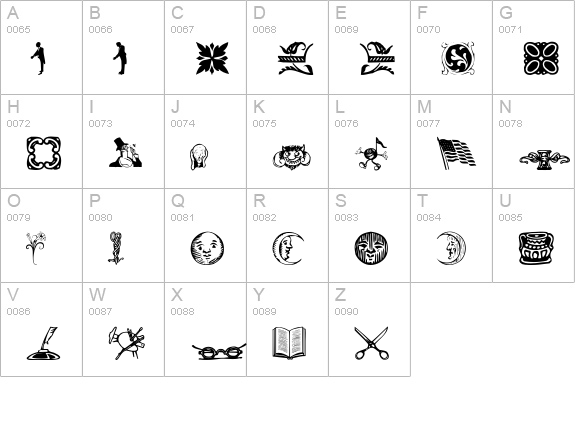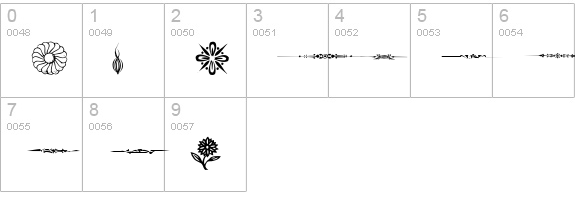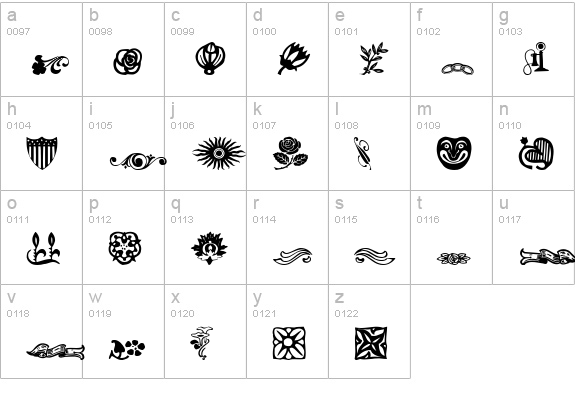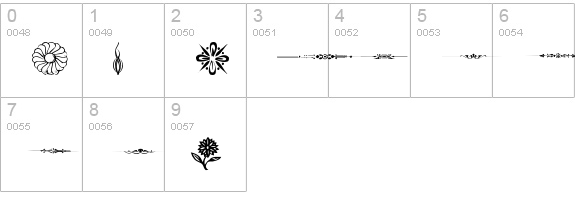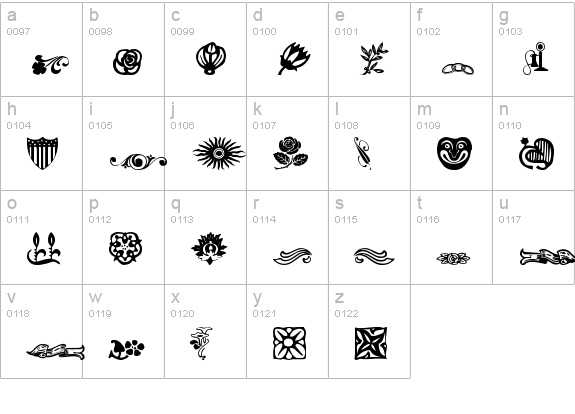
DavysDingbats1 Font Details
DavysDingbats1 font is a whimsical and playful typeface that is perfect for adding a touch of fun to your designs. This unique font features a variety of decorative dingbats and ornaments that can be used to enhance your projects. Whether you're creating invitations, posters, or social media graphics, DavysDingbats1 font will add a creative flair to your work. The best part is that DavysDingbats1 font is available for free! You can easily download this charming font at FontsMarket.com and start using it in your projects right away. With its versatility and eye-catching design elements, DavysDingbats1 font is sure to become a favorite in your font collection. Don't miss out on this fantastic free font – download DavysDingbats1 today and let your creativity shine!